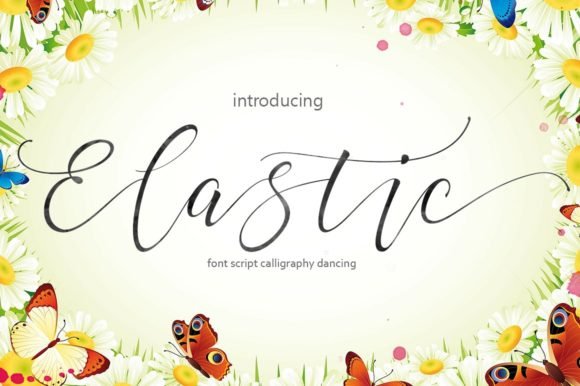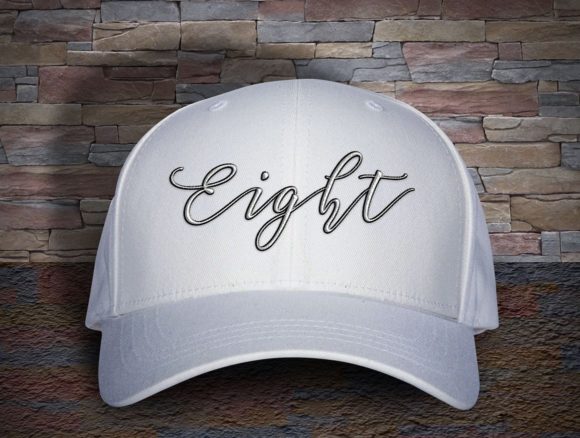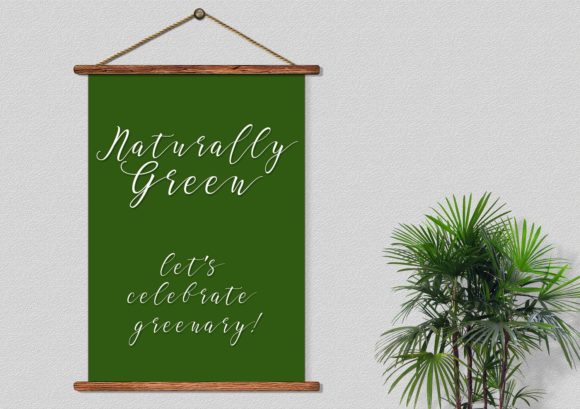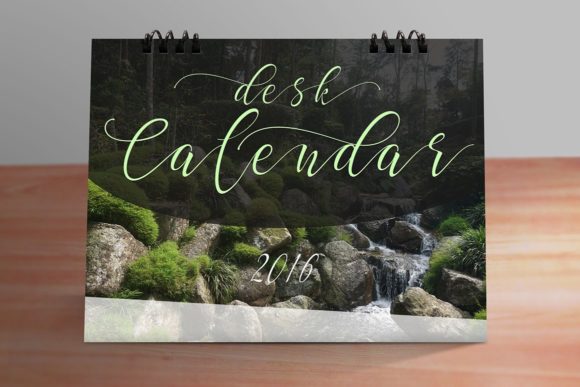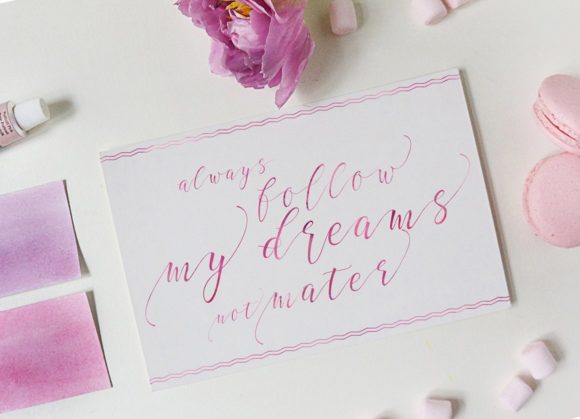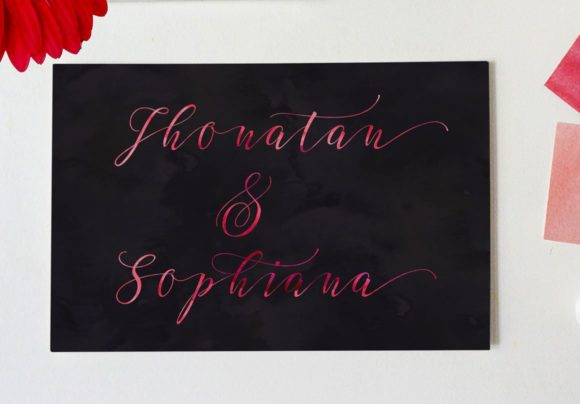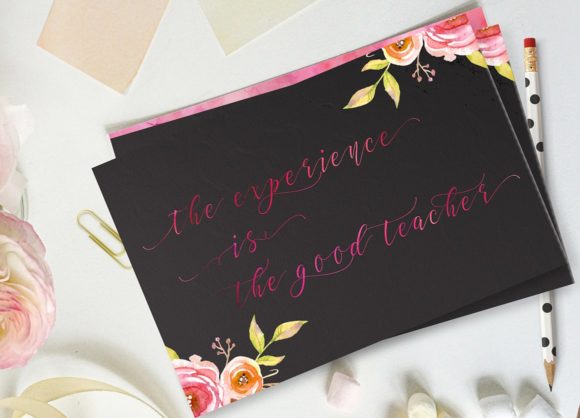
When Words Come Alive
Have you ever stared at a blank page, trying to find the perfect words to convey your message? The blank slate can be intimidating, but it’s in those moments of creative uncertainty that we discover the beauty of typography. A well-chosen font can make all the difference, elevating our ideas and bringing them to life.
Enter the Elastic Font, a stunning script font that’s equal parts charming and elegant. This beautiful font is a stylish homage to classic calligraphy, featuring a varying baseline, smooth lines, gorgeous glyphs, and stunning alternates. With its PUA encoding and wealth of special features, including alternate glyphs and ligatures, the Elastic Font is the perfect tool for designers looking to take their projects to the next level.
Elastic Font Key Features
- Unique Variable Font Technology: Elastic Font is a variable font that allows for continuous font scaling and styling, making it ideal for digital and web applications.
- High Resolution: Designed for high-resolution displays, with a resolution of up to 4K (3840 x 2160 pixels) and beyond.
- Compact File Size: Despite its high-resolution capabilities, Elastic Font has a compact file size, making it ideal for web and digital applications where file size is a concern.
- Customizable and Adaptable: Elastic Font’s variable font technology allows for customization and adaptation to different screen sizes, devices, and reading environments.
- Wide Character Set Support: Supports a wide range of languages and characters, including Latin, Cyrillic, Greek, and many Asian languages.
Elastic Font Review
Overall, I’m impressed with the Elastic Font and its unique approach to typography. Here are some of its strengths:
- ✨ Flexible spacing: The font’s elastic properties allow for seamless adaptation to different text densities, making it ideal for responsive web design.
- ✨ Customizable: The font’s elasticity can be fine-tuned to suit various design styles and preferences.
- ✨ Versatile: Elastic Font is suitable for a wide range of applications, from body text to headings and titles.
- ⚠️ Limited compatibility: Elastic Font may not work well with older browsers or systems that don’t support advanced typography features.
- ⚠️ Complexity: The font’s elasticity can sometimes lead to over-compensation, resulting in inconsistent spacing or layout issues.
Overall, I’d say the Elastic Font is a great addition to any designer’s toolkit. While it may require some experimentation and fine-tuning, its benefits far outweigh its limitations. With careful use, this font can add a unique touch to your designs and enhance the overall user experience.
Elastic Font: A Practical Application Guide
Tip: Use Elastic Font for headings and titles to create a visually appealing design.
Tip: Use Elastic Font for creative typography and design elements.
Tip: Use Elastic Font for headings, titles, and body text to create a consistent design.
Elastic Font is perfect for:
- Creative typography and design elements
- Body text for a unique look
Remember to experiment with different font sizes, colors, and alignments to get the most out of Elastic Font.
Alternatives to Elastic Font for Designers
Open Sans is a modern sans-serif font that is highly legible and versatile. It’s suitable for digital interfaces, including websites, mobile apps, and software. Open Sans is a great choice when you need a clean and readable font for body text, but it may not be the best option for headings or titles.
Compared to Elastic Font, Open Sans has a more consistent and uniform appearance, making it ideal for large blocks of text. However, Elastic Font has a more dynamic and expressive feel, making it suitable for creative projects or titles.
Lato is a sans-serif font that is designed to be highly readable and versatile. It’s suitable for digital interfaces, including websites, mobile apps, and software. Lato is a great choice when you need a font that is both modern and elegant. It’s also highly customizable, making it suitable for a wide range of design projects.